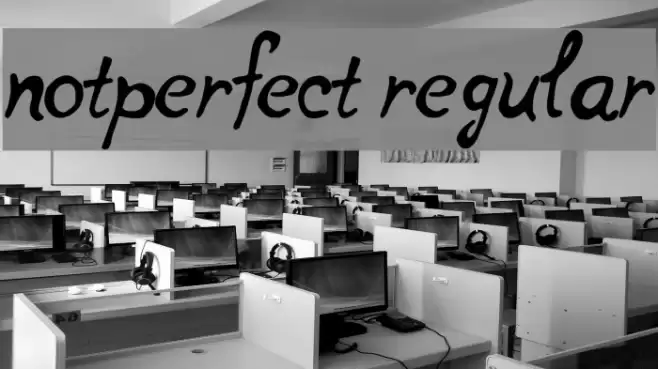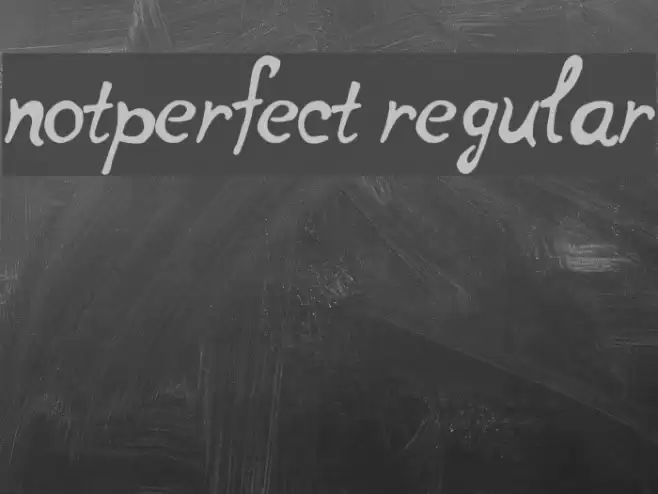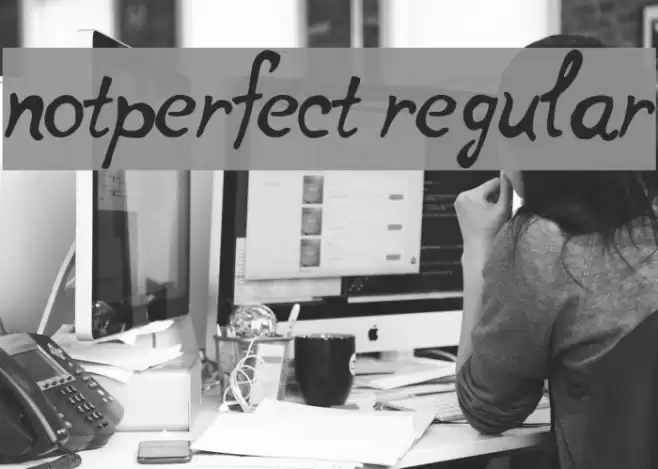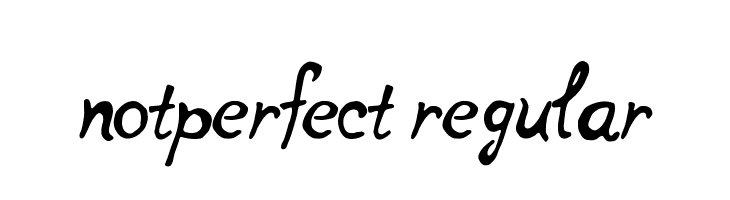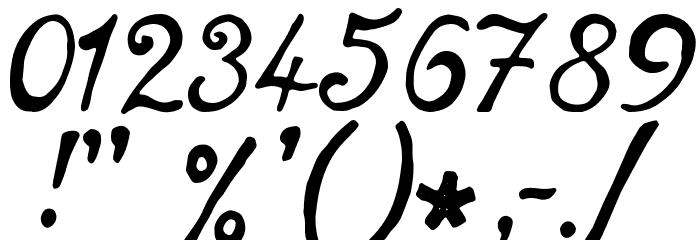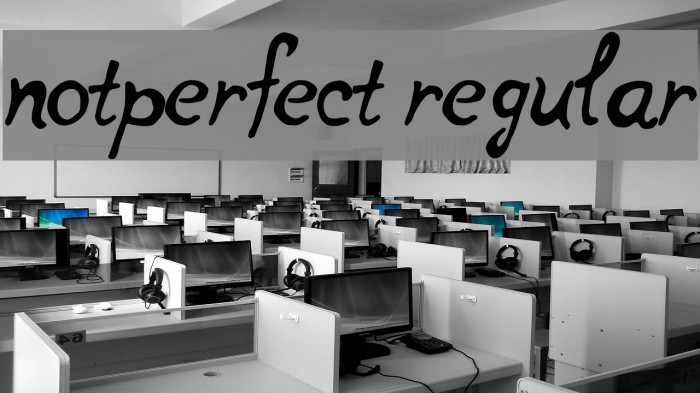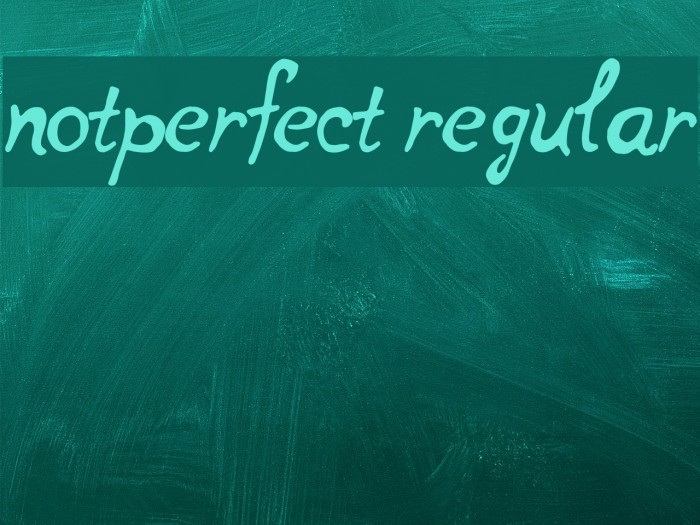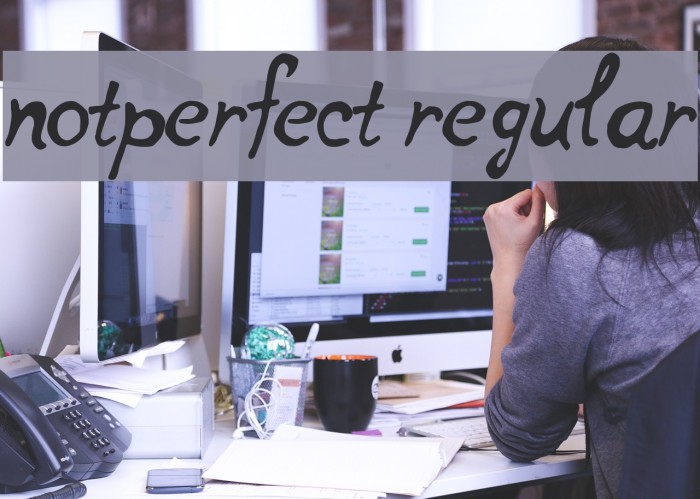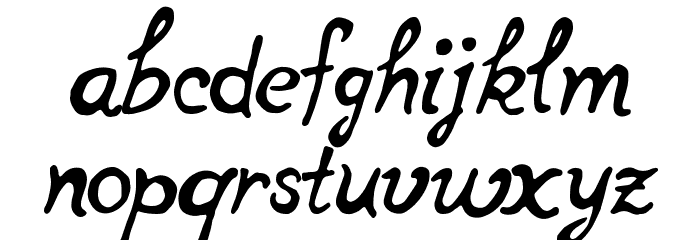
notperfect regular Font
notperfect regular Description
This font features a playful and whimsical style with a handwritten appearance. The characters are slightly irregular, adding a unique charm and personality. The uppercase letters have a flowing, cursive quality, while the lowercase letters maintain a more casual script style. Numbers and special characters are consistent with the overall playful theme, making them suitable for creative and informal designs. The font's distinctive style is perfect for projects that require a touch of individuality and creativity.
A playful, handwritten font with a whimsical and unique style from Handwritten fonts.
- Proposed Projects: Ideal for greeting cards, invitations, children's books, and creative branding projects.
- Use Case: Headlines, Logos, Creative projects